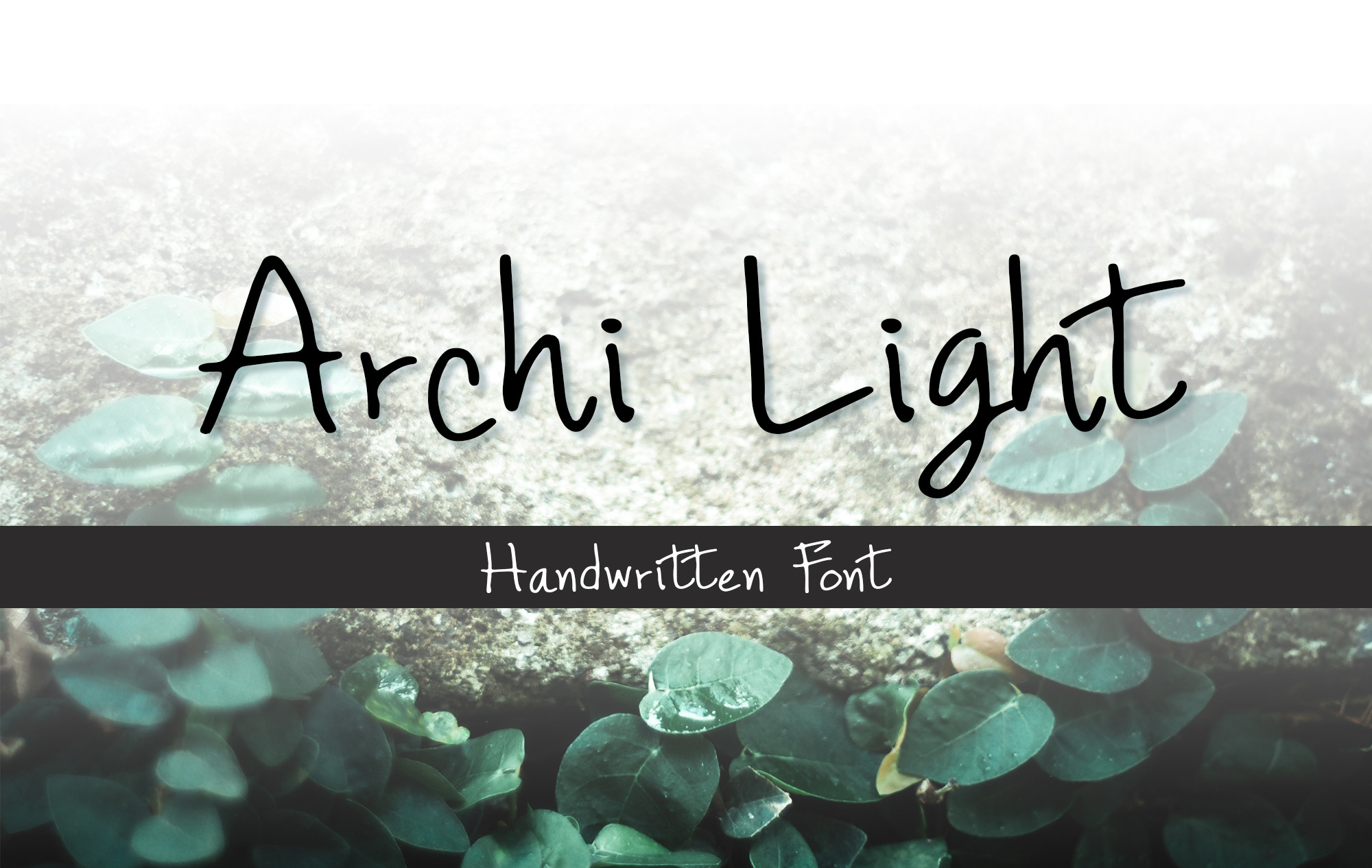
Archi Light Font
Archi Light is a handwriting font. With the thinness of the lines, the characters appear to be sparse. You may have seen characters like this in drafts. Sketch designs of all designers. You can use it to write lectures and articles. Feels like handwriting Try it out, it may help you feel like a designer.